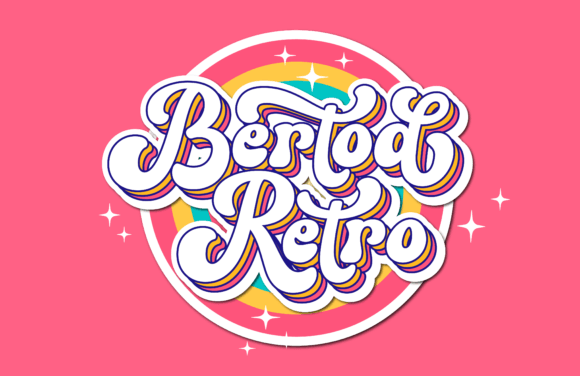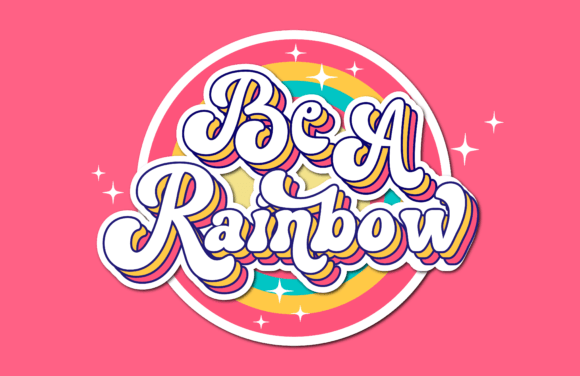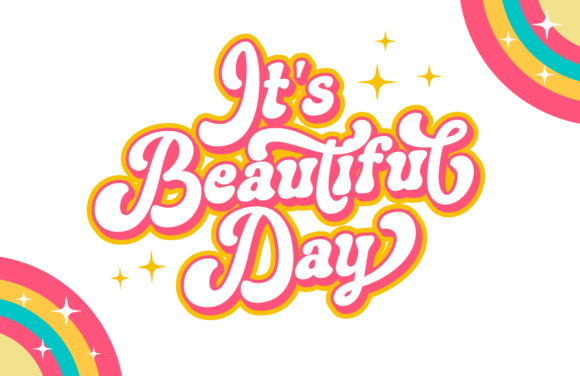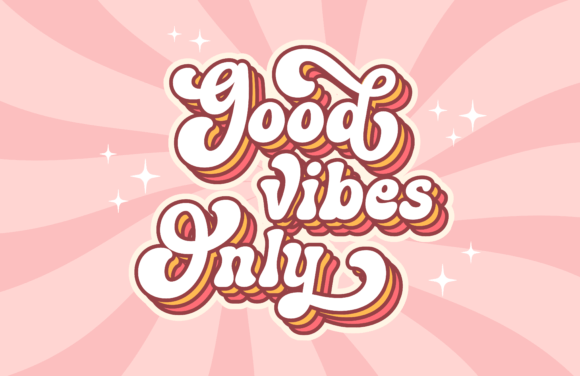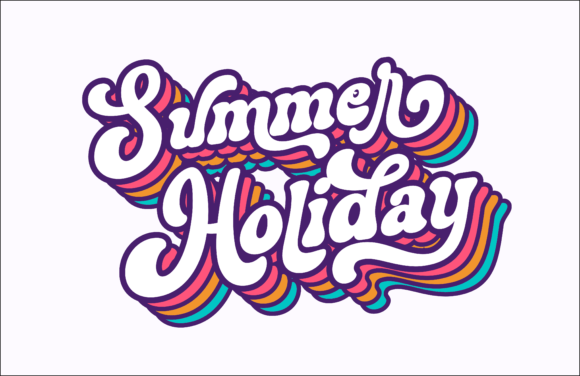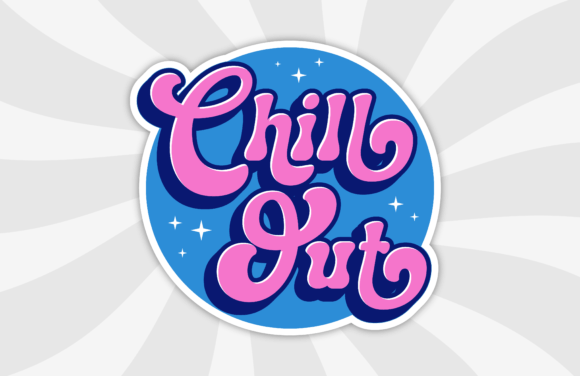
Bertod Retro Font: Elevate Your Designs with a Playful and Versatile Typeface
In the world of typography, a font can make or break a design. For designers and crafters looking for a unique and eye-catching typeface, Bertod Retro Font is an excellent choice. This playful font is designed to add a touch of nostalgia and fun to any project, making it perfect for a wide range of applications.
What Makes Bertod Retro Font Special?
Bertod Retro is a beautifully crafted font that boasts an array of features that set it apart from other typefaces. Some of its standout features include:
- Beautiful Ligatures: Bertod Retro Font comes with stunning ligatures that add a touch of elegance and sophistication to your designs.
- Custom Alternate Glyphs: The font includes a wide range of custom alternate glyphs, giving you the flexibility to experiment with different styles and variations.
- Multilingual Support: Bertod Retro Font supports multiple languages, making it an excellent choice for designers working on international projects.
Bertod Retro Font is an incredibly versatile typeface that can be used in a wide range of applications, including:
- T-shirts: Create eye-catching and unique designs for t-shirts that are sure to turn heads.
- Stickers: Add a touch of fun and personality to your stickers with Bertod Retro Font.
- Branding: Use the font to create memorable and impactful brand identities.
- Product Packaging: Elevate your product packaging with a font that is both playful and sophisticated.
One of the best things about Bertod Retro Font is that it is PUA (Private Use Area) encoded. This means that you can access all of the amazing glyphs and ligatures with ease, without having to worry about complicated font management.
Why Choose Bertod Retro Font?
With so many fonts available, why choose Bertod Retro Font? Here are just a few reasons why this typeface stands out:
- Unique and Playful: Bertod Retro Font is a one-of-a-kind typeface that adds a touch of fun and personality to any design.
- Highly Versatile: The font can be used in a wide range of applications, from t-shirts to product packaging.
- Easy to Use: With PUA encoding, accessing the font’s features is simple and straightforward.
Tips for Using Bertod Retro Font
To get the most out of Bertod Retro Font, here are a few tips to keep in mind:
- Experiment with Ligatures: Take advantage of the font’s beautiful ligatures to add a touch of elegance to your designs.
- Play with Alternate Glyphs: Use the font’s custom alternate glyphs to create unique and eye-catching variations.
- Pair with Other Fonts: Bertod Retro Font pairs well with a variety of other typefaces, so don’t be afraid to experiment with different combinations.
Bertod Retro Font is a playful and versatile typeface that is perfect for designers and crafters looking to add a touch of fun and personality to their designs. With its beautiful ligatures, custom alternate glyphs, and multilingual support, this font is sure to become a go-to choice for a wide range of applications. So why wait? Download Bertod Retro Font today and start elevating your designs!